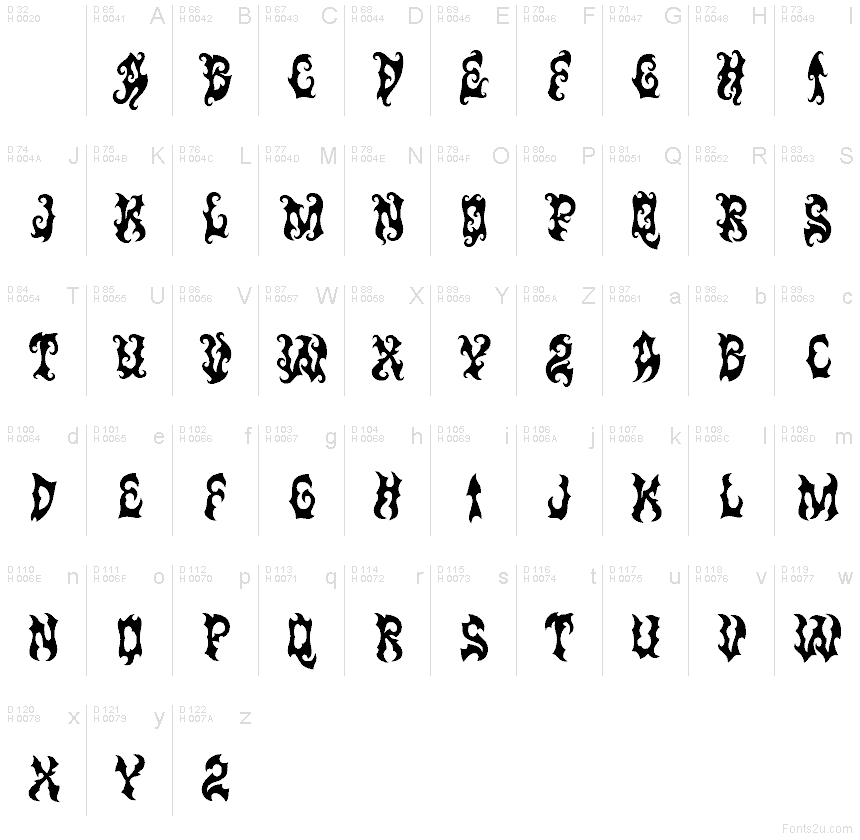
CS Werewolf Regular Demo
CS Werewolf font designed by Craft Supply Co. is a condensed display font with a scary, fiery style. Combining an ornate and gothic nature with historical medieval script aspects, CS Werewolf carries a bold decorative presence. This free font can perfectly fit mystical themes in horror genres and even fantasy themes that involve another world.
Make your designs stand out when you use this typeface in posters, signage, video games, board games, book covers for fantasy novels. Find it also an outstanding choice for comics design when combined with ink drawings!